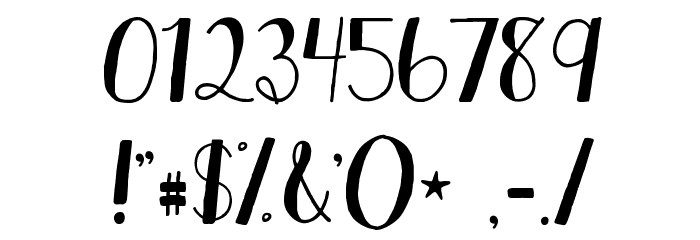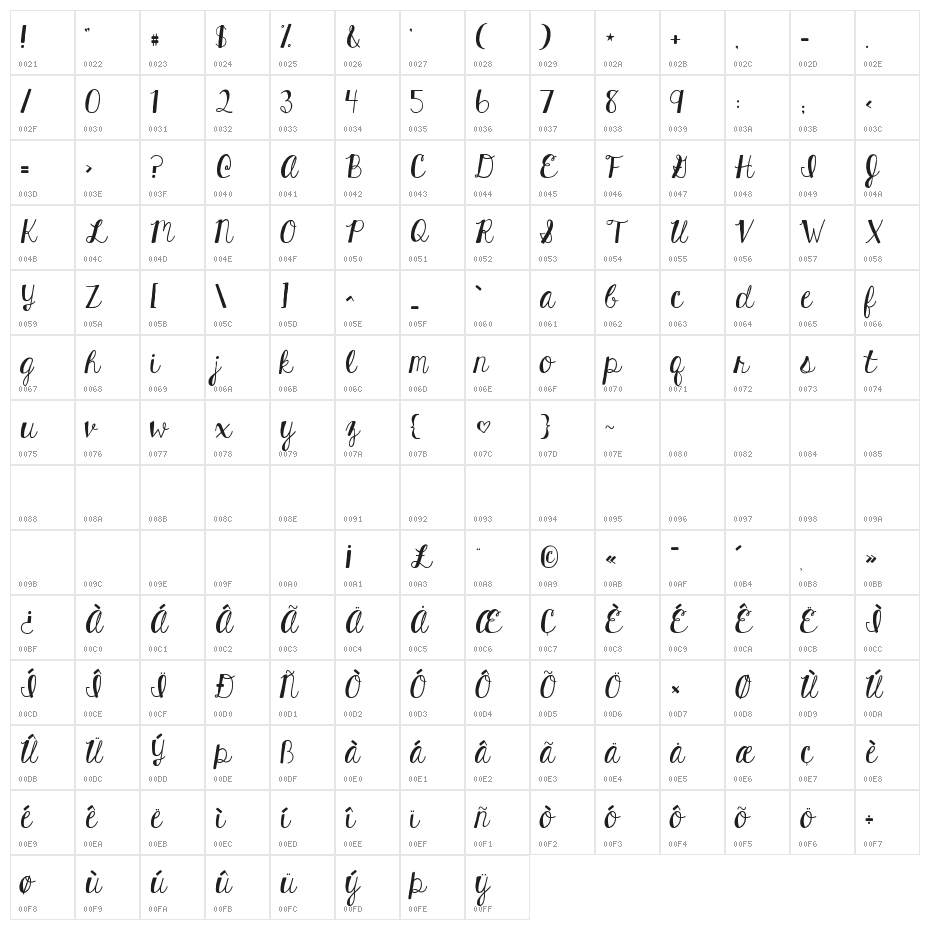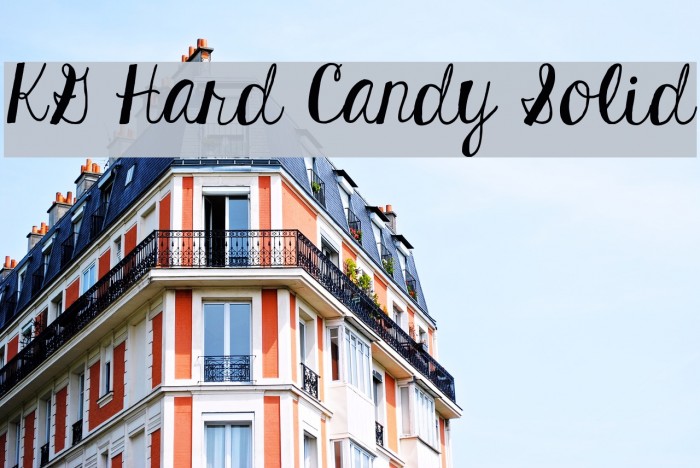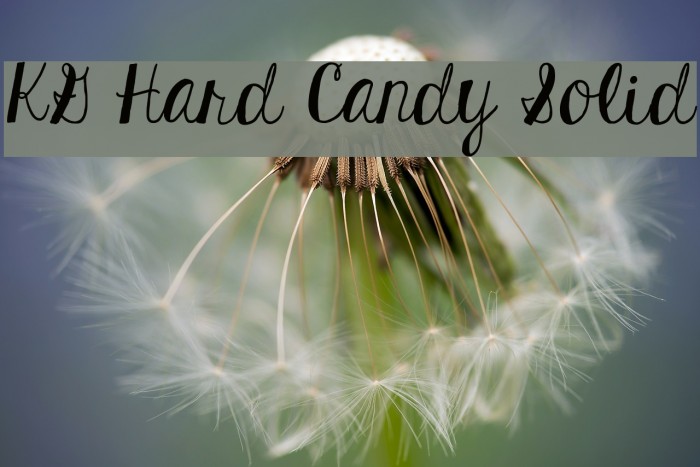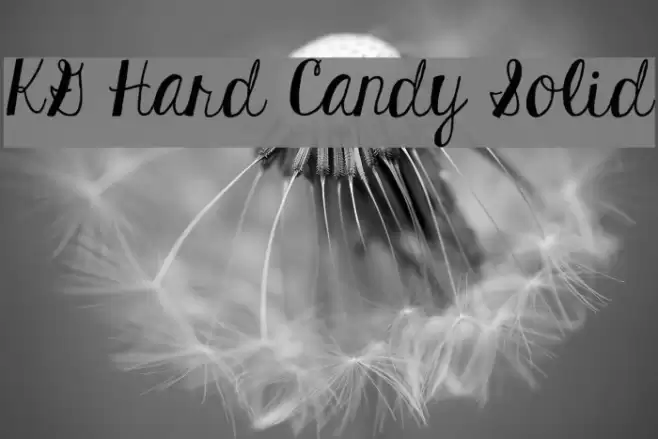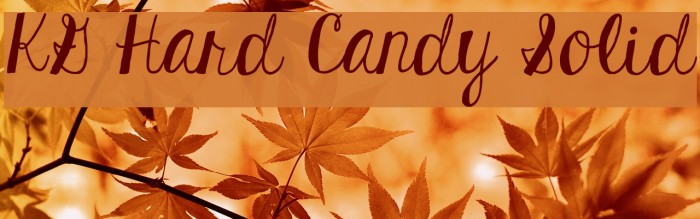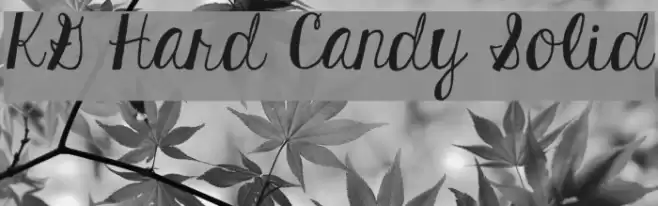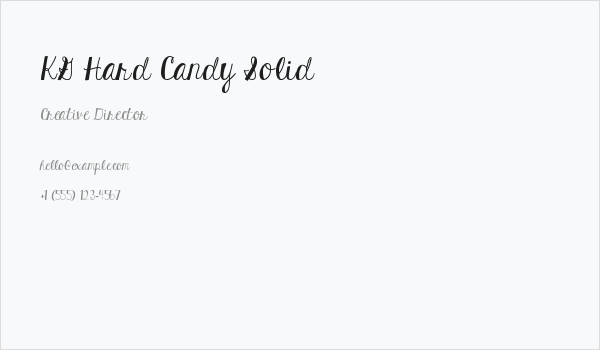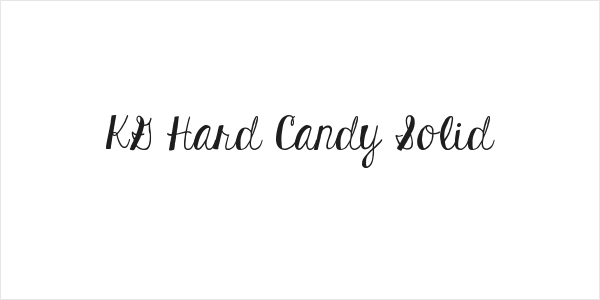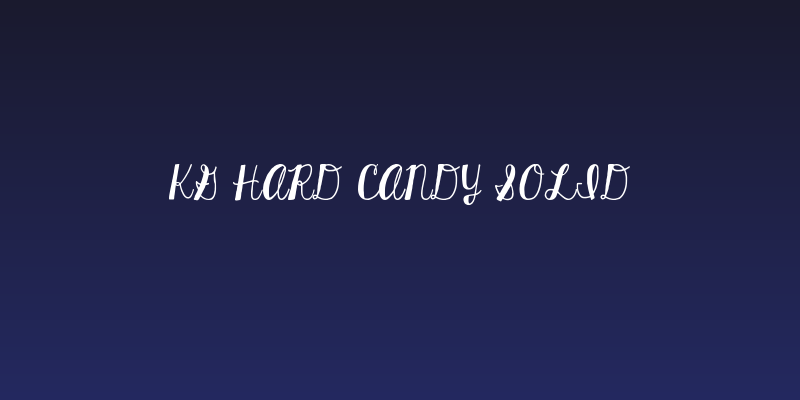
KG Hard Candy Solid Font
KG Hard Candy Solid Description
This font features a playful and whimsical script style, characterized by its flowing, cursive letters with a slight slant. The strokes are smooth and rounded, giving it a friendly and approachable appearance. The uppercase letters are bold and expressive, while the lowercase letters maintain a consistent flow, creating a harmonious balance. Numbers and special characters are designed with the same playful flair, making them stand out. The overall design is both elegant and fun, suitable for a variety of creative projects.
| Proposed Projects | Ideal for greeting cards, invitations, playful branding, and children's book covers. |